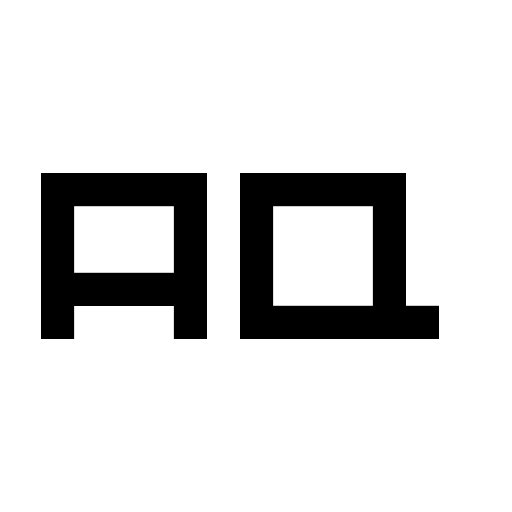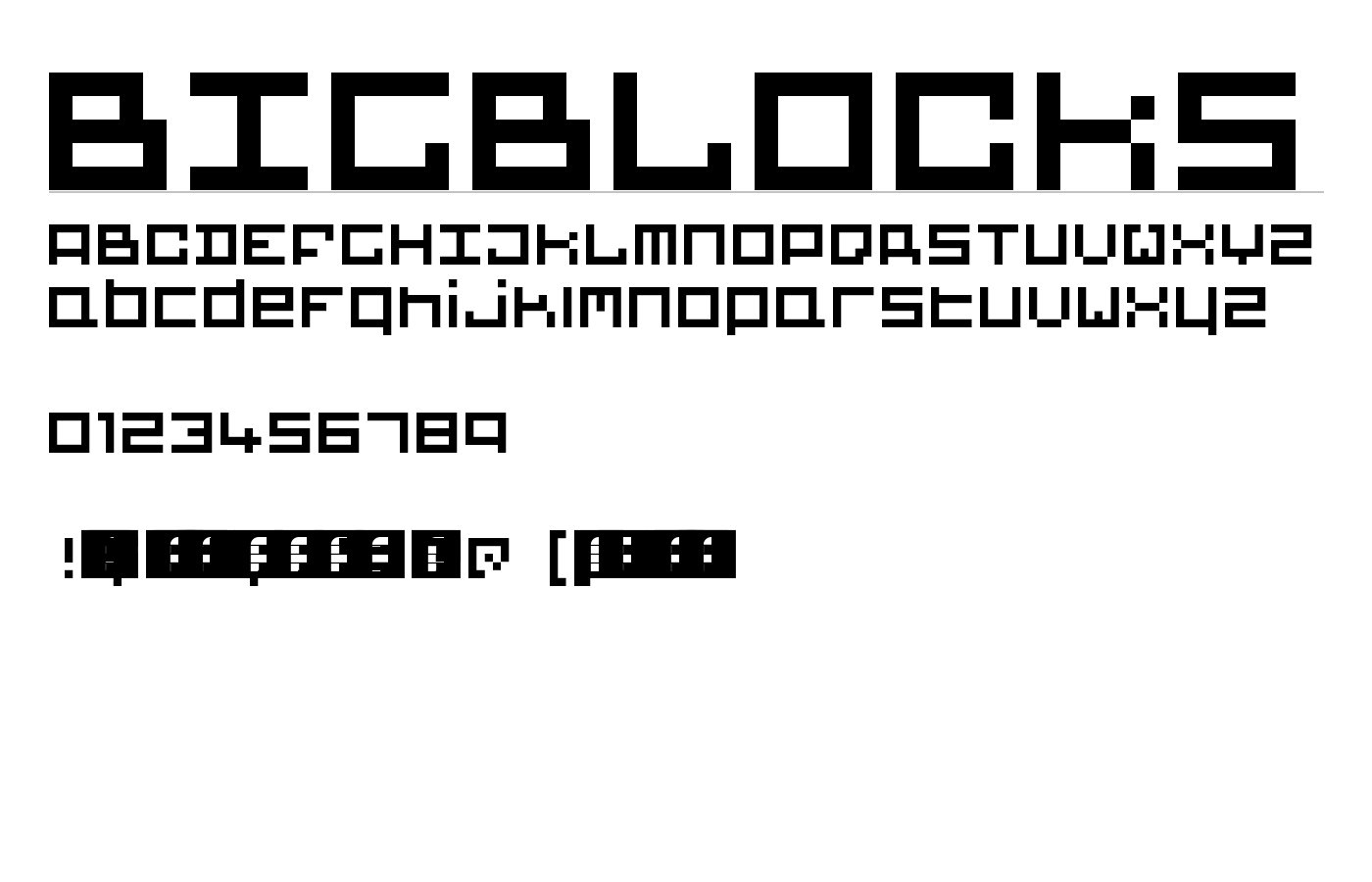
BIGBLOCKS is a bold, geometric sans serif font characterized by its blocky, pixel-like letterforms that evoke a digital or retro video game vibe. Its strong, square shapes and consistent stroke weight make it highly legible and perfect for eye-catching headlines, logos, and designs that want a modern, tech-inspired or playful personality. This font works best where a futuristic, robust, and modular style is desired, especially in branding, posters, and digital media.
BIGBLOCKS Font
About BIGBLOCKS Font
| Font family | BIGBLOCKS Font |
| Designer | Chris Coombes |